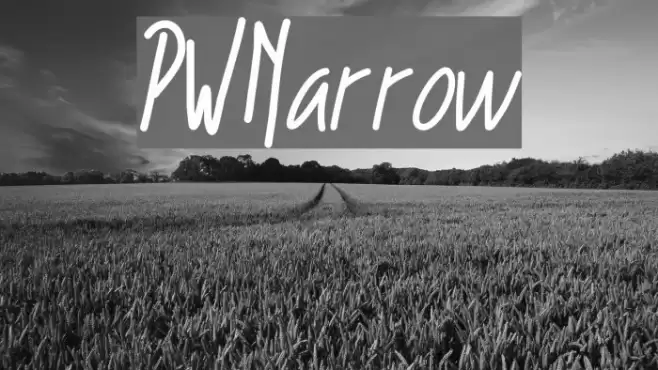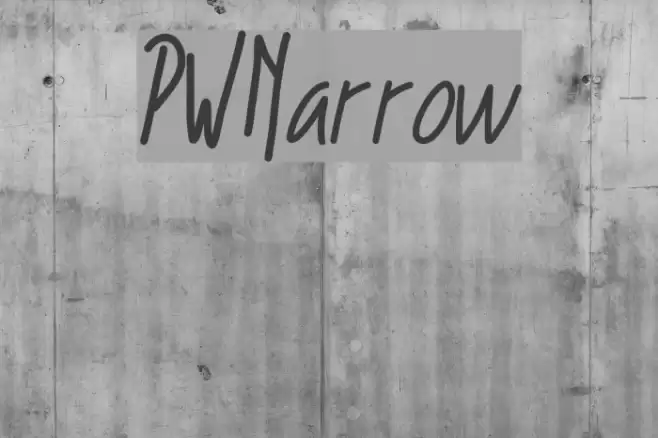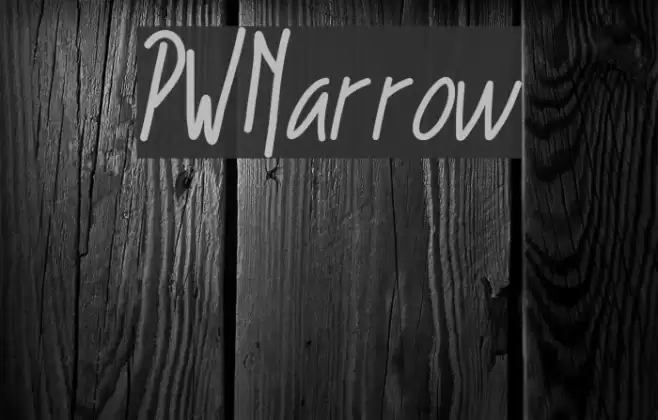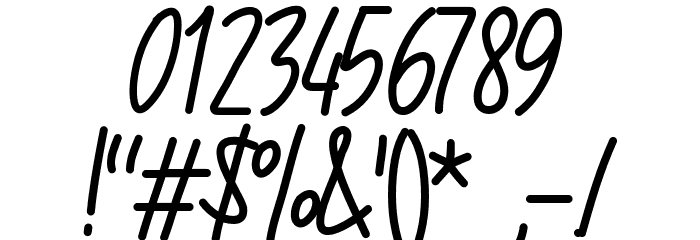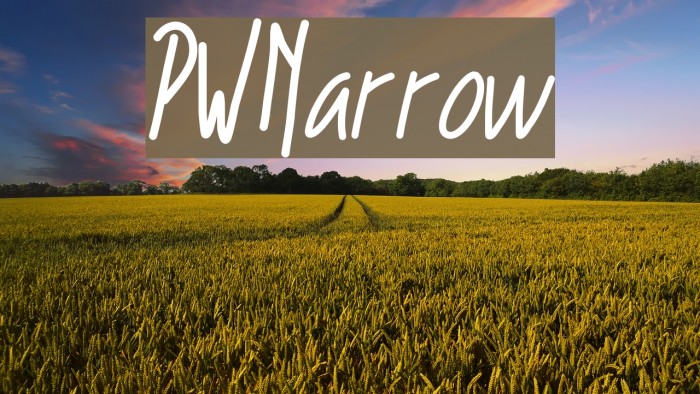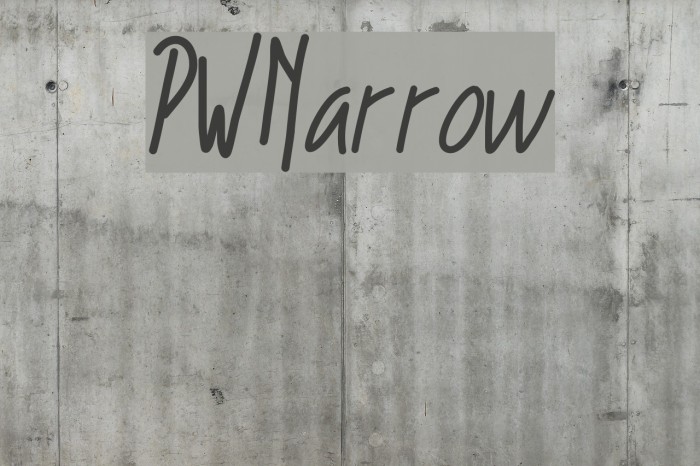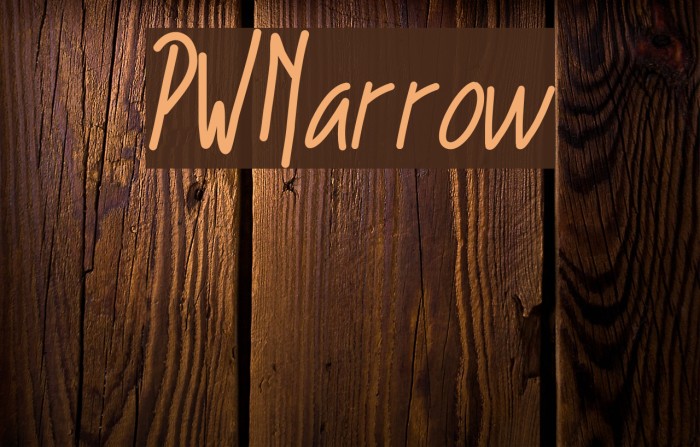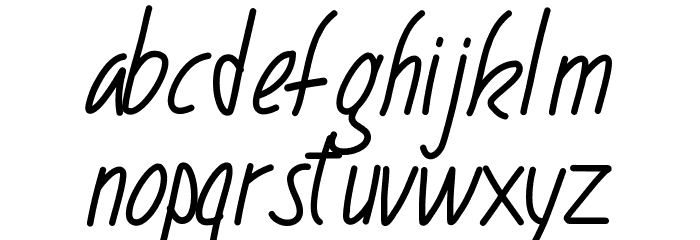
PWNarrow Font
PWNarrow Description
This font features a handwritten, casual style with a playful and informal appearance. The letters are narrow and elongated, giving it a unique and distinctive look. The strokes are smooth and fluid, with a slight slant that adds to its dynamic character. The uppercase and lowercase letters maintain a consistent style, while the numbers and special characters complement the overall design. This font is perfect for projects that require a personal touch or a creative flair.
A narrow, handwritten font with a playful and informal style.
- Proposed Projects: Ideal for greeting cards, invitations, personal branding, and creative projects that require a casual and friendly tone.
- Category: Handwritten
- Overall Style: Casual, Playful
- Use Case: Headlines, Logos, Creative projects